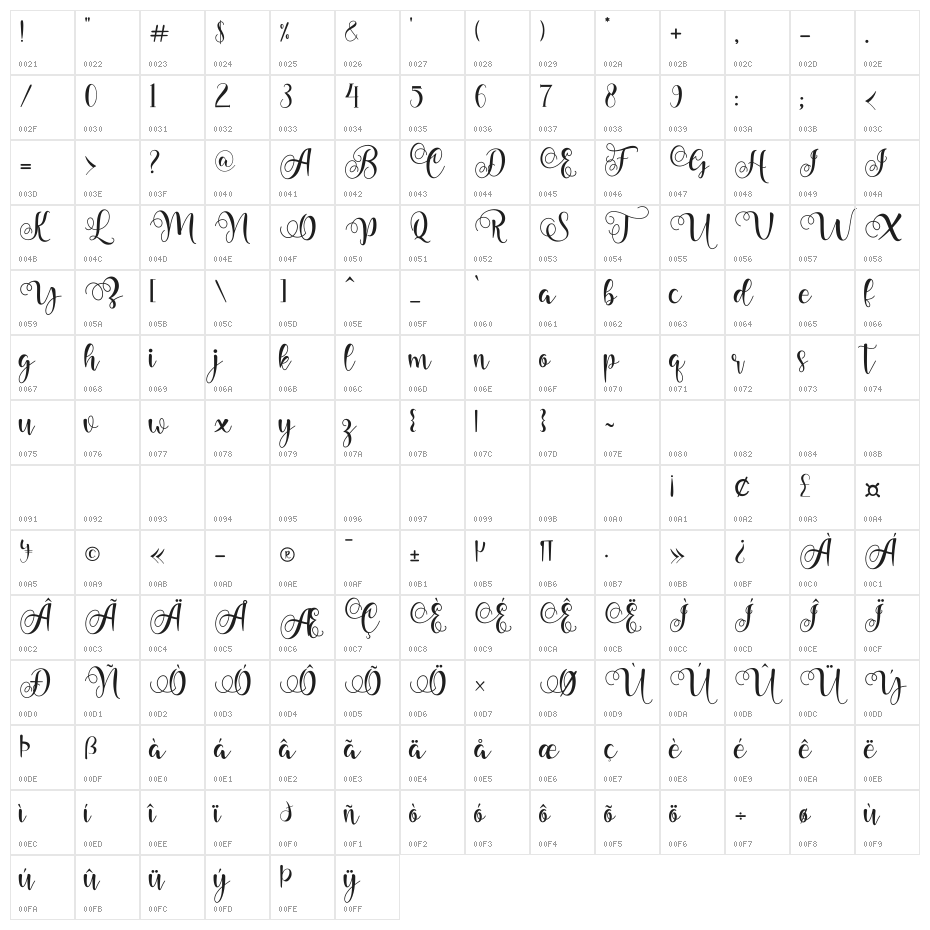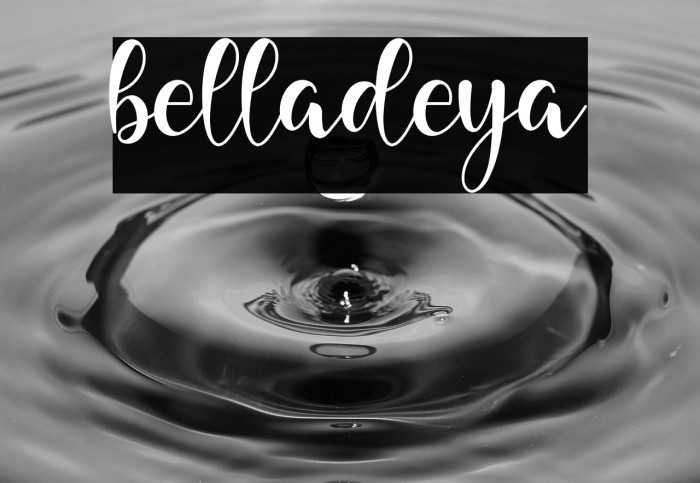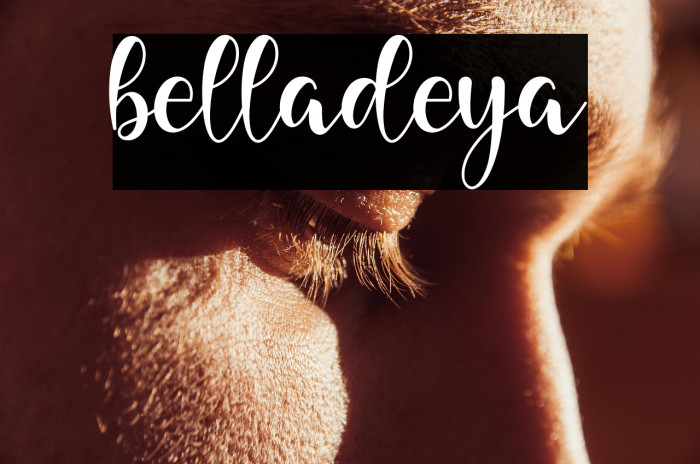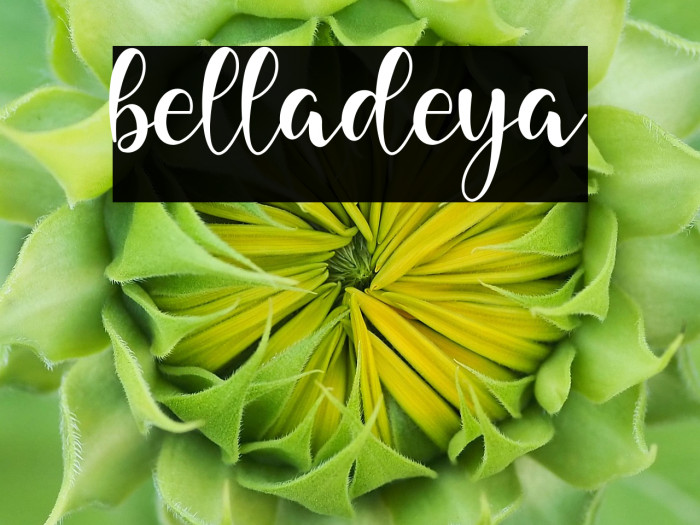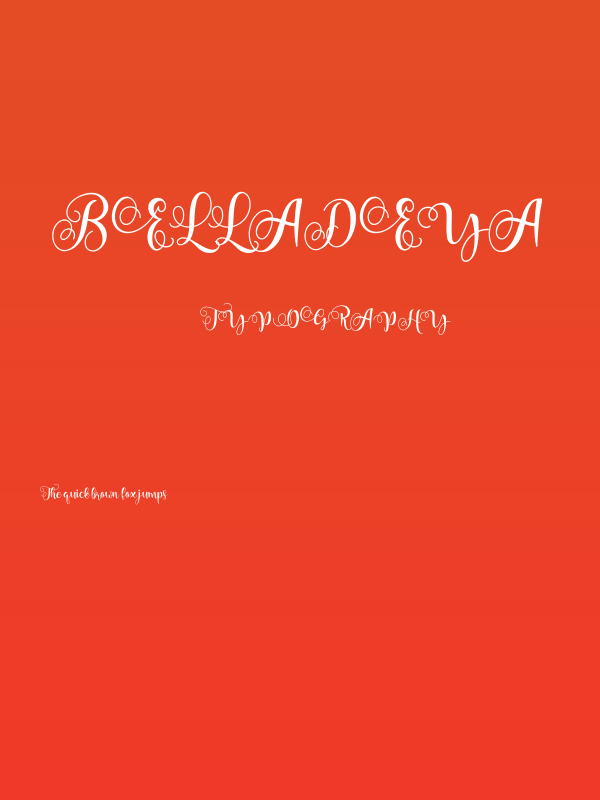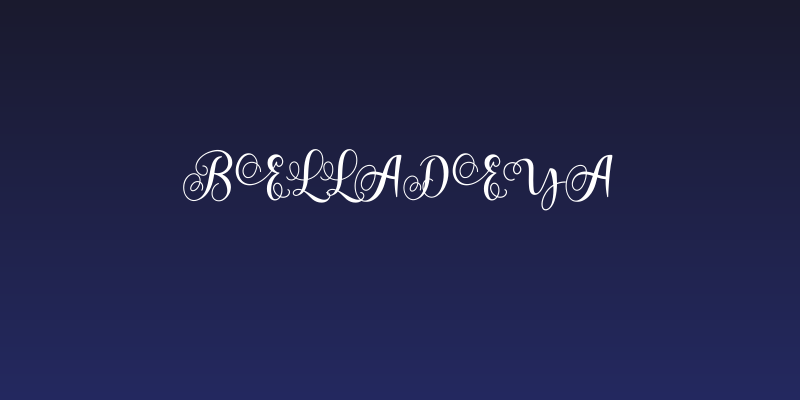
belladeya Font
belladeya Description
This font exudes elegance and sophistication with its intricate, flowing script style. The uppercase letters are adorned with delicate swirls and loops, creating a sense of movement and grace. The lowercase letters maintain a consistent flow, with smooth curves and a slightly playful character. The numerals are stylish and maintain the overall aesthetic, while the special characters are thoughtfully designed to complement the alphabet. This font is perfect for projects that require a touch of elegance and charm, such as wedding invitations, branding, and decorative prints.
| Overall Style | Elegant, Decorative |
| Use Case | Logos, Invitations, Decorative text |
| Proposed Projects | Ideal for wedding invitations, branding, decorative prints, and elegant stationery. |